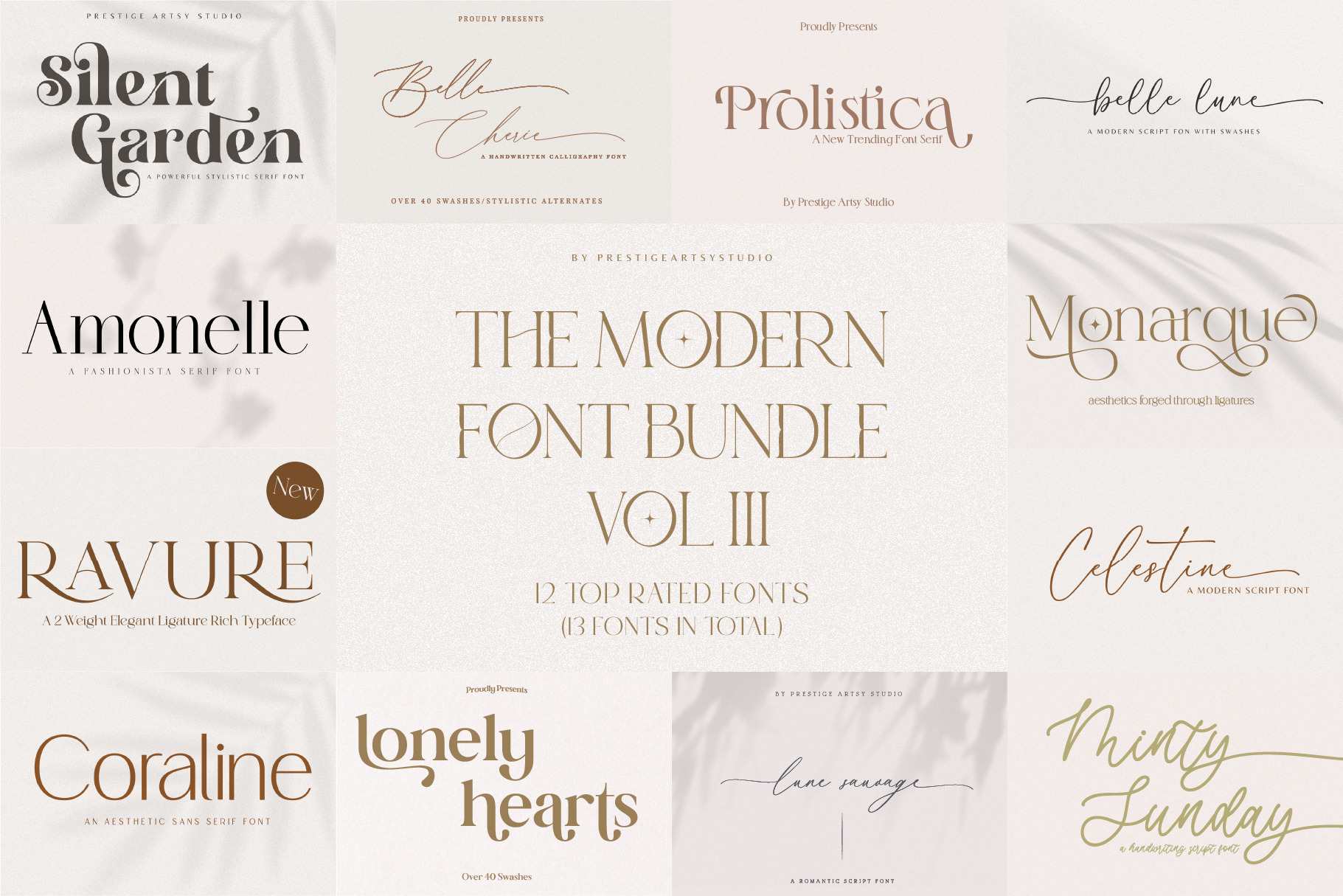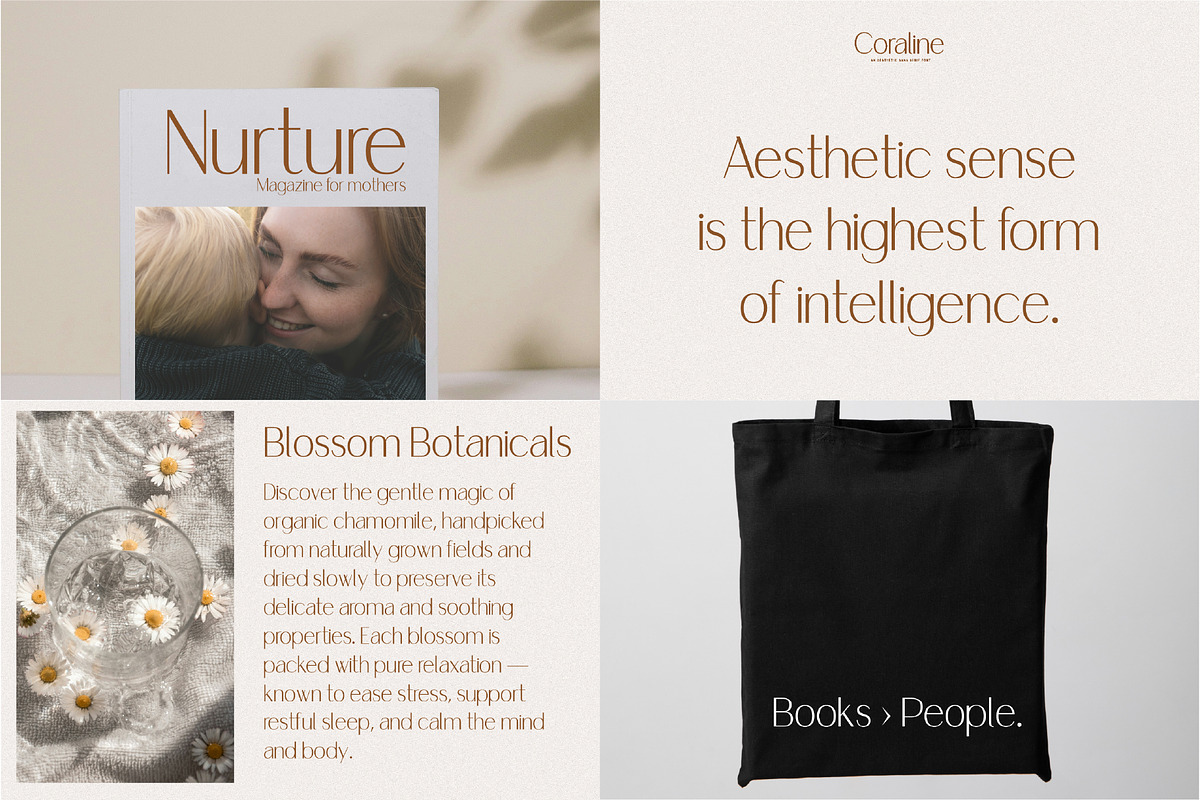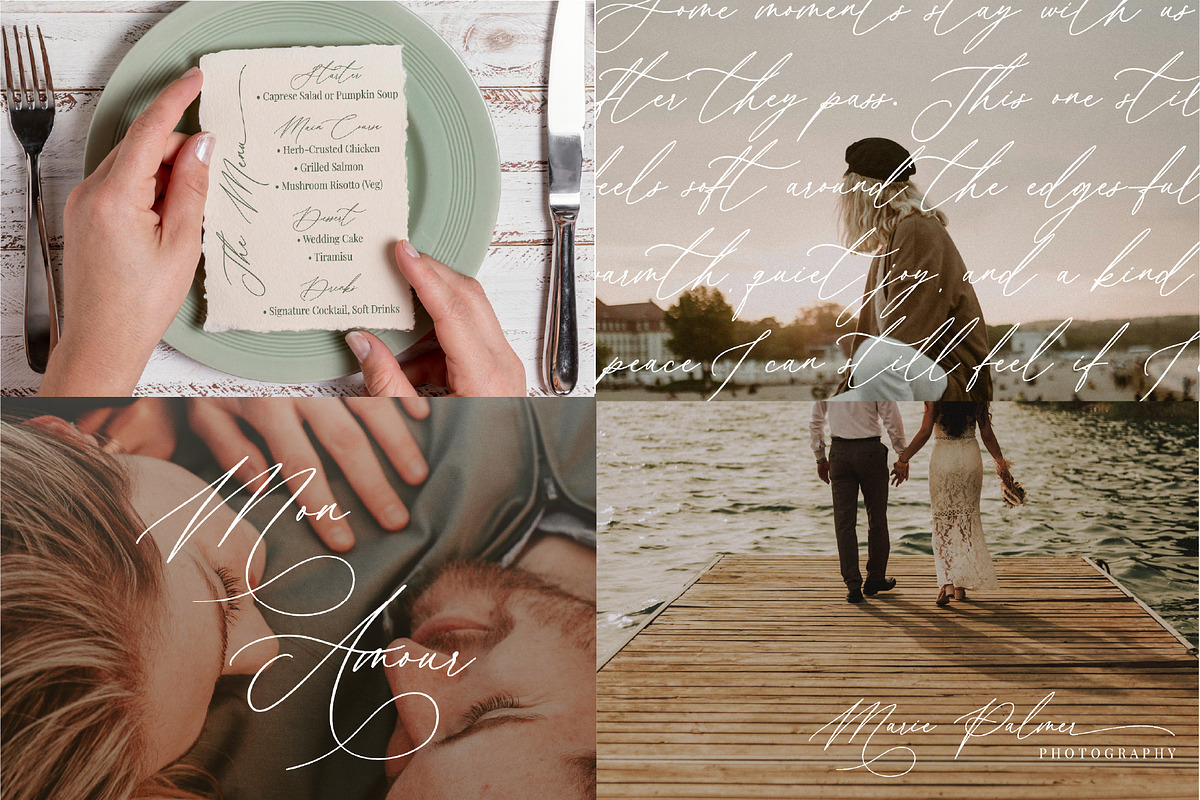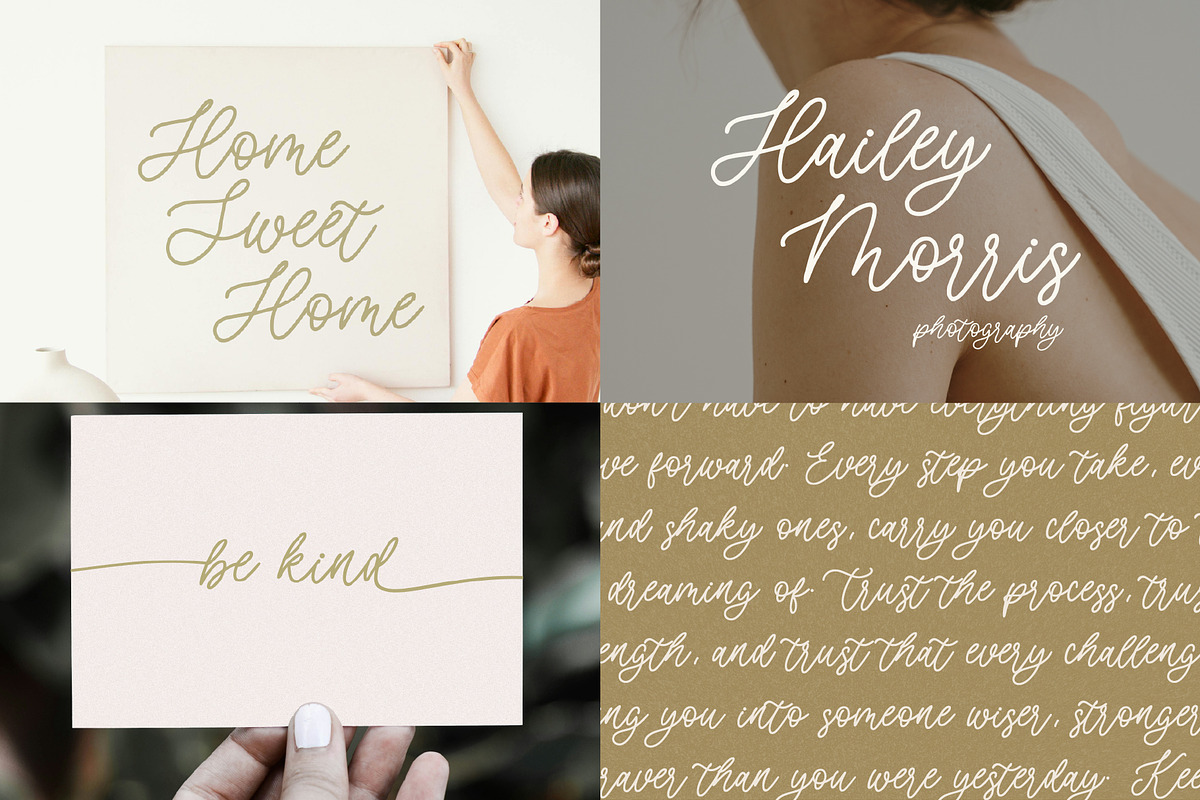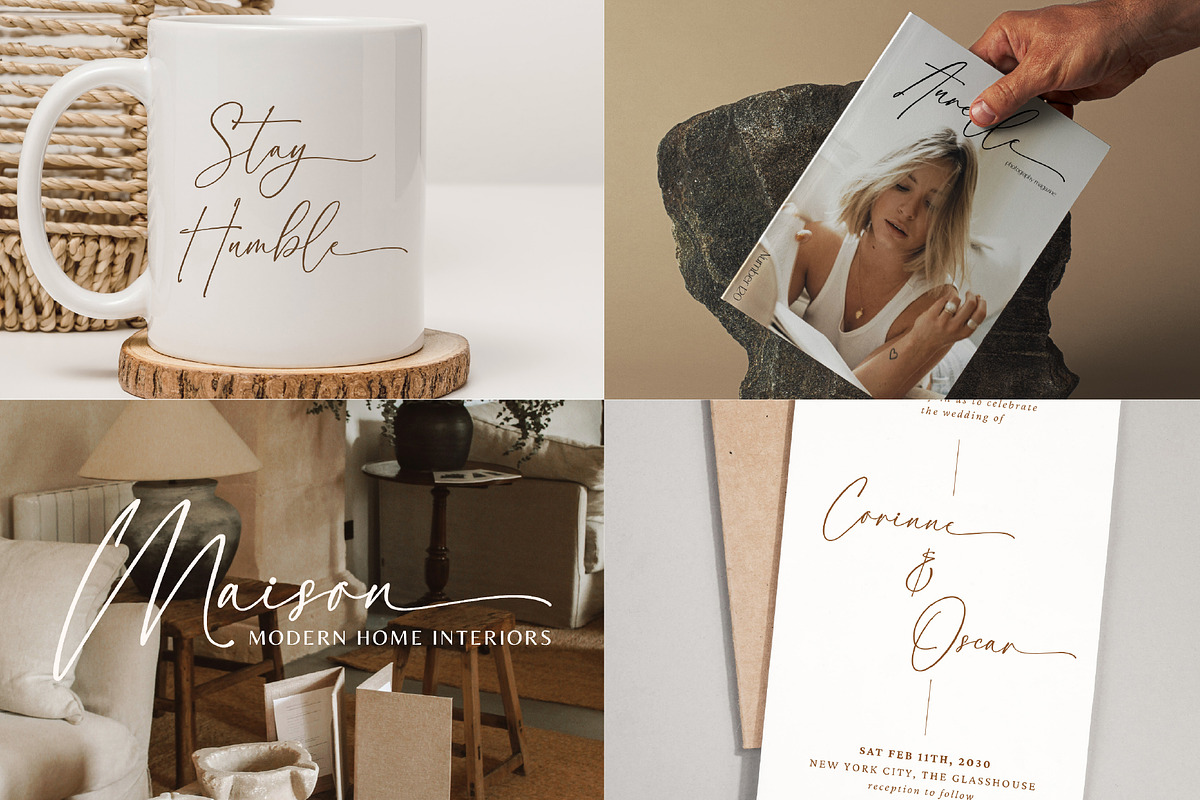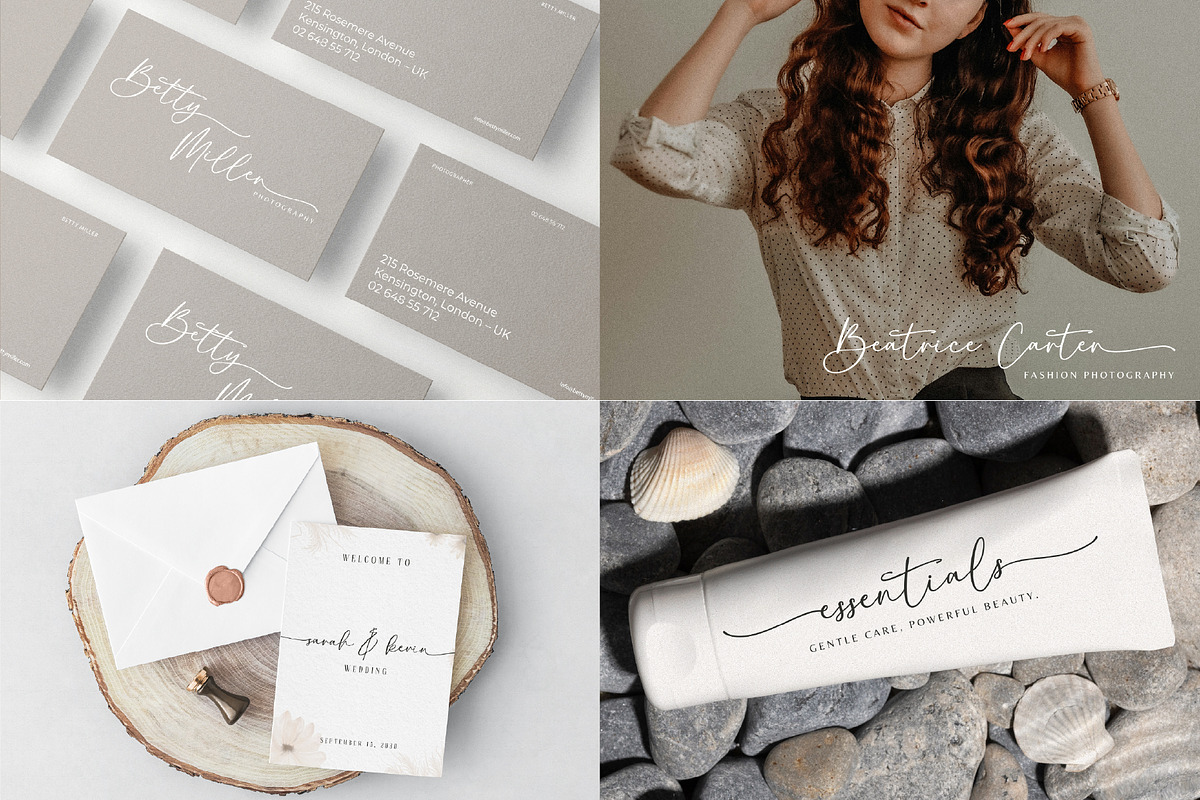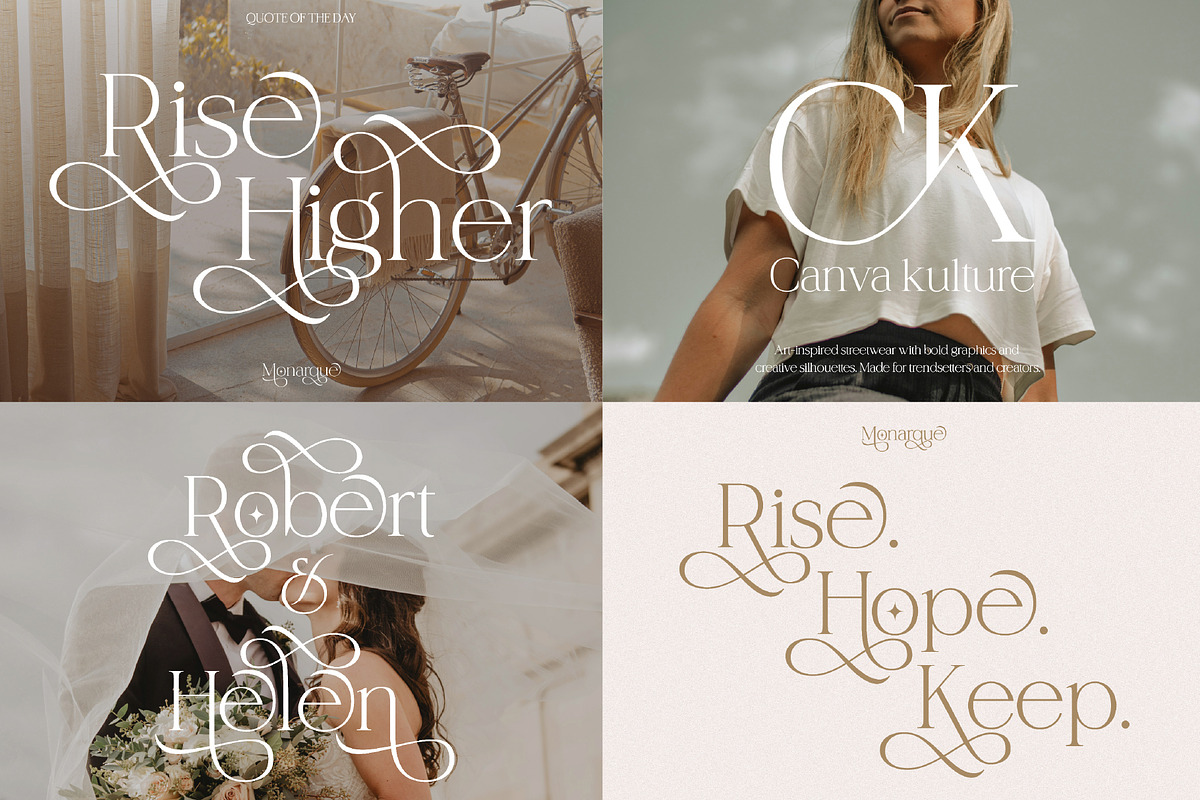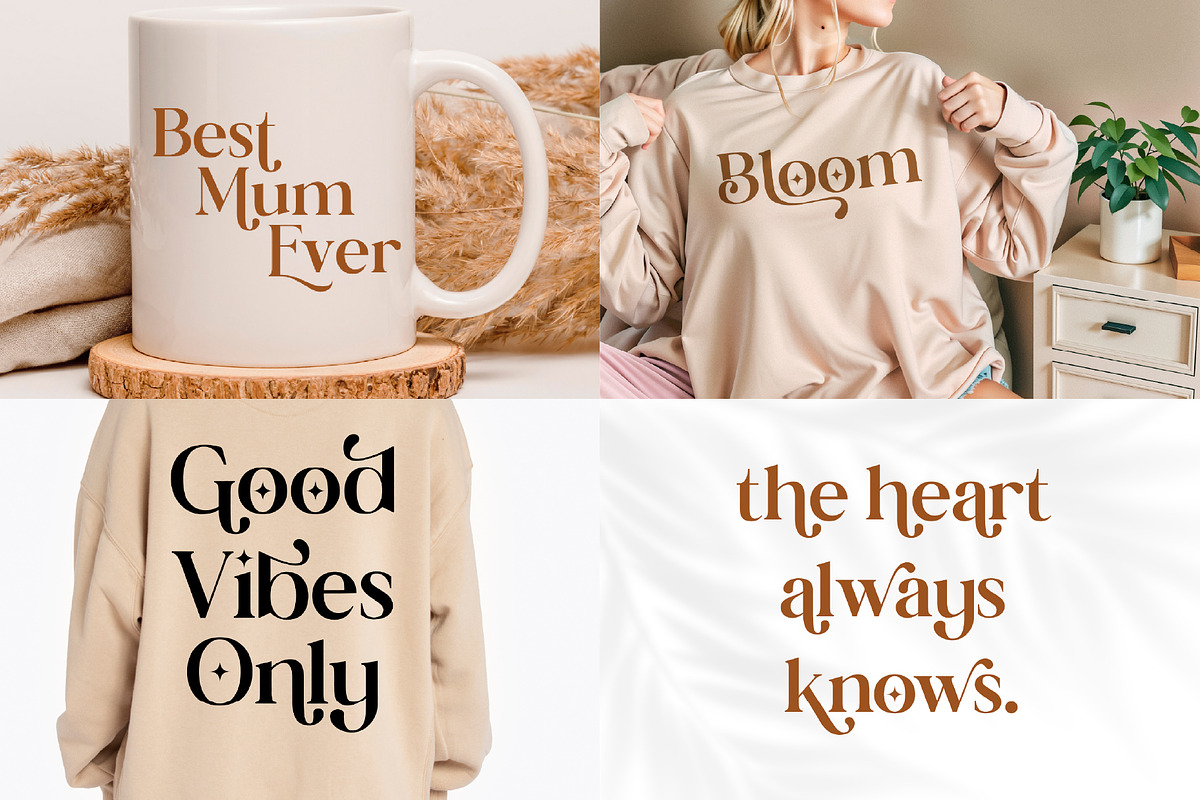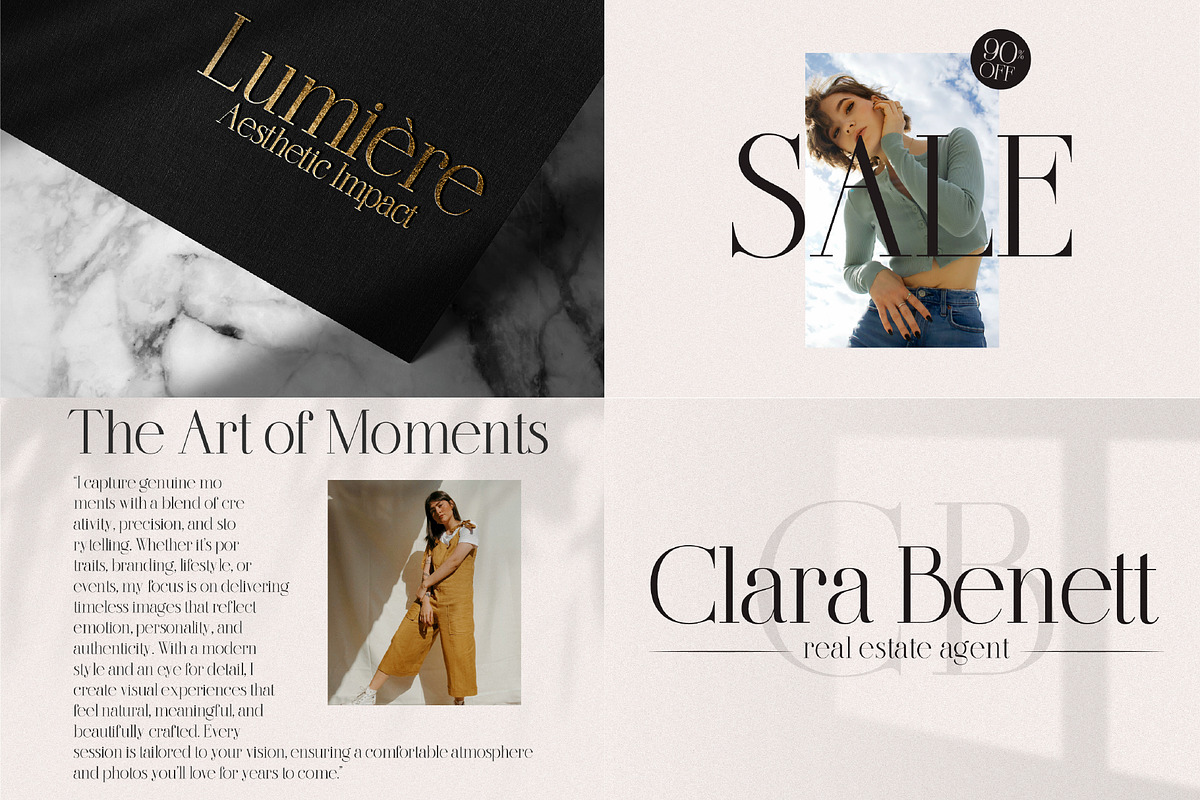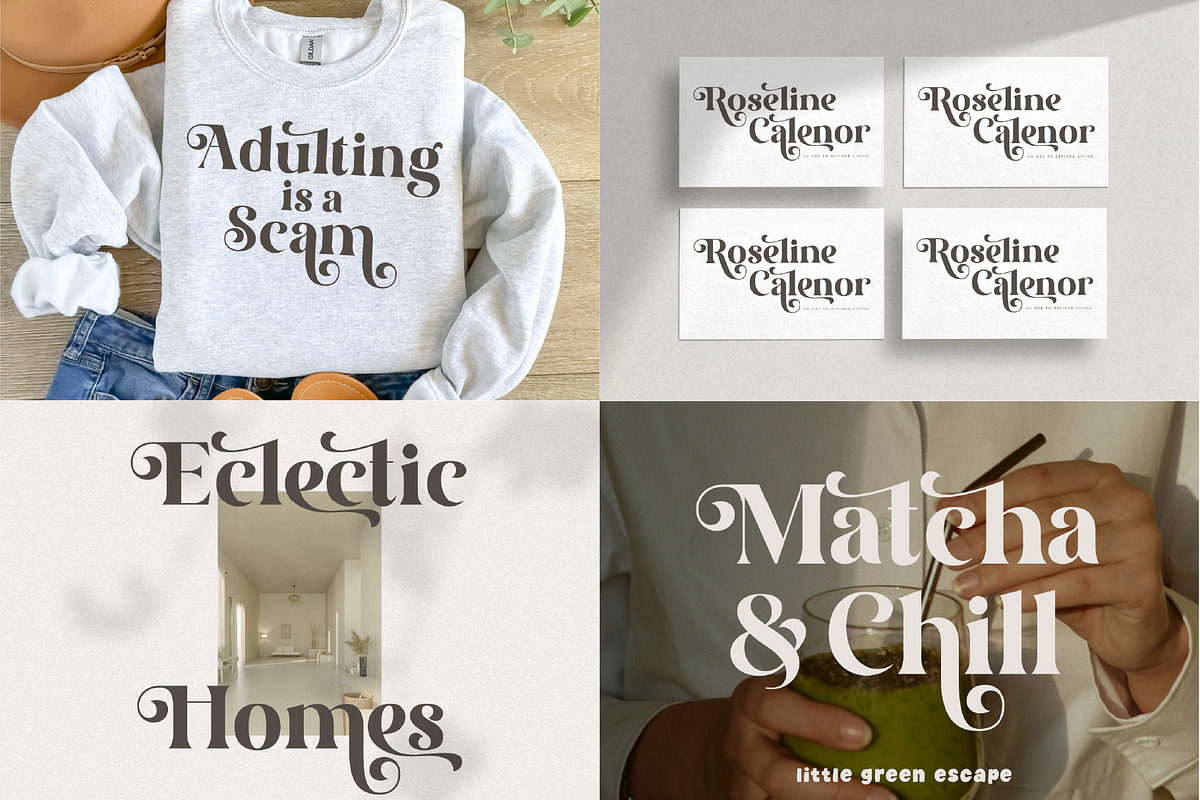
The Modern Font Bundle VOL III
Elevate your designs with Modern Font Bundle • Volume III — a thoughtfully curated collection of 12 high-quality, professionally crafted fonts designed to add sophistication, versatility, and timeless appeal to your creative projects.
Perfect for branding, logo design, wedding stationery, invitations, packaging, social media, and both digital and print use, this bundle offers a refined balance of modern serifs, elegant scripts, and striking display fonts.
Whether you’re a seasoned designer or a creative entrepreneur, this collection gives you the tools to create designs that feel luxurious, cohesive, and memorable.
✦ Included Fonts
Silent Garden
Belle Cherie
Prolistica
Belle Lune
Amonelle
Monarque
Ravure (2 Weights)
Celestine
Coraline
Lonely Hearts
Lune Sauvage
Minty Sunday
✦ Key Features
Ideal for logos, branding, weddings, invitations, packaging, and crafting
A versatile mix of serif, script, sans-serif, and display styles
Designed for both professional designers and creative beginners